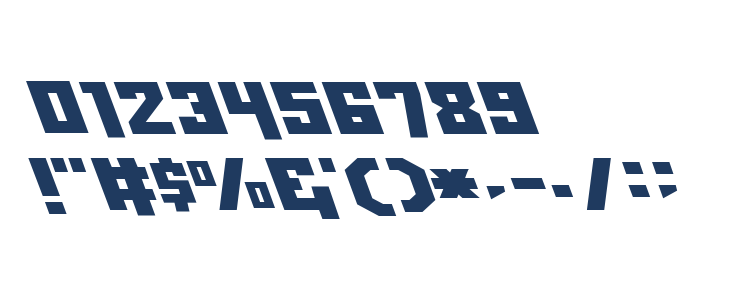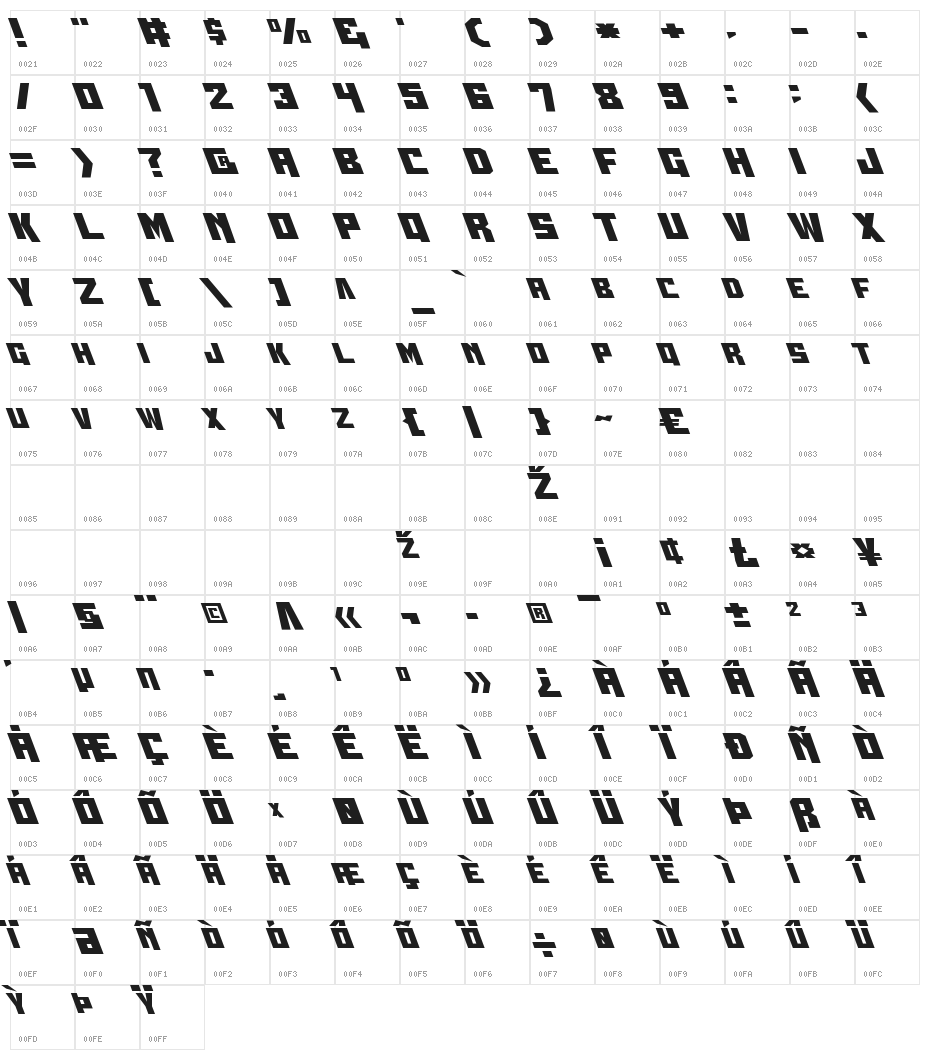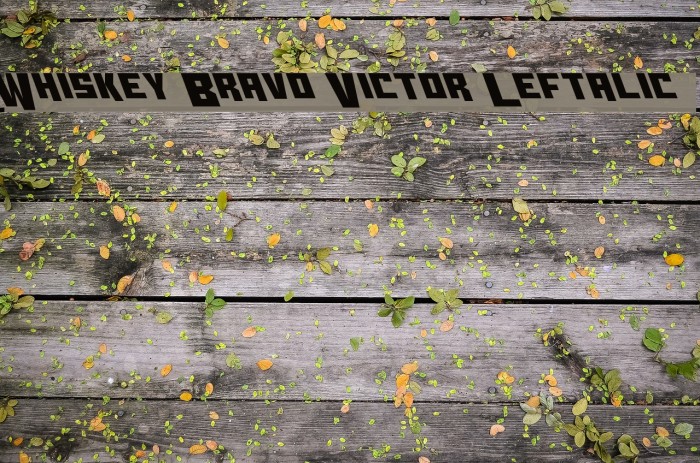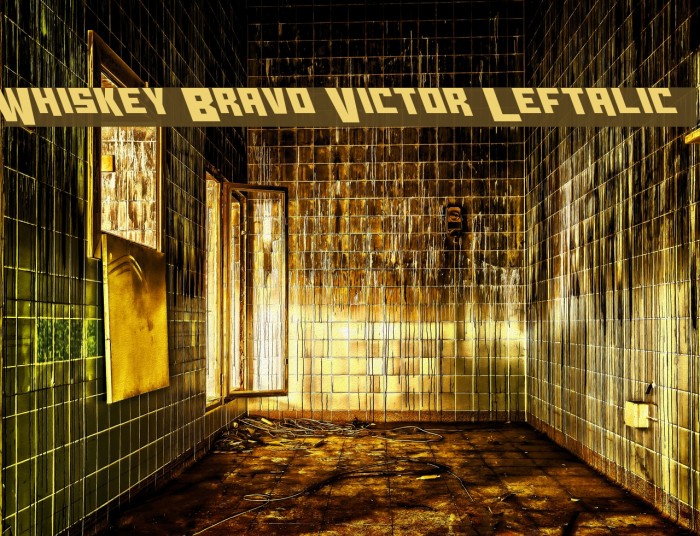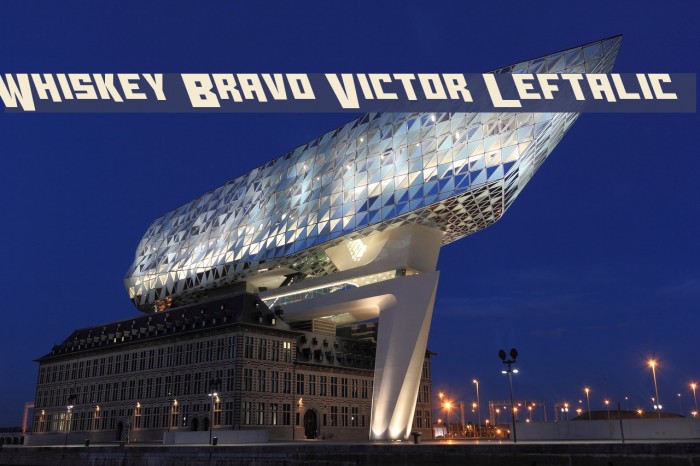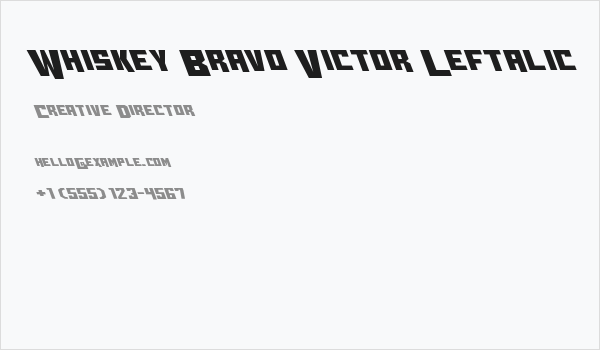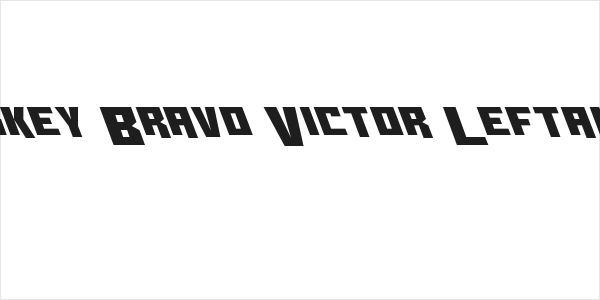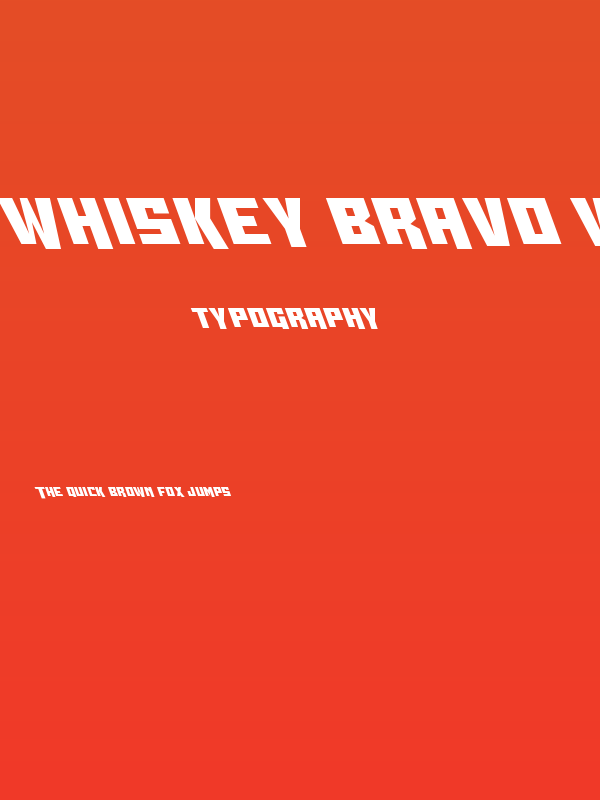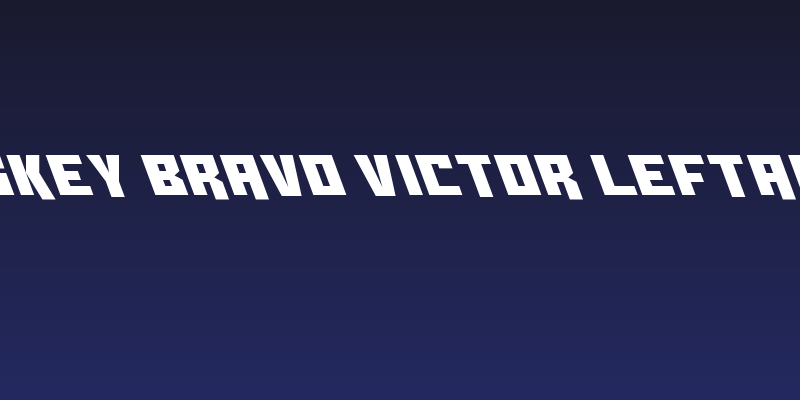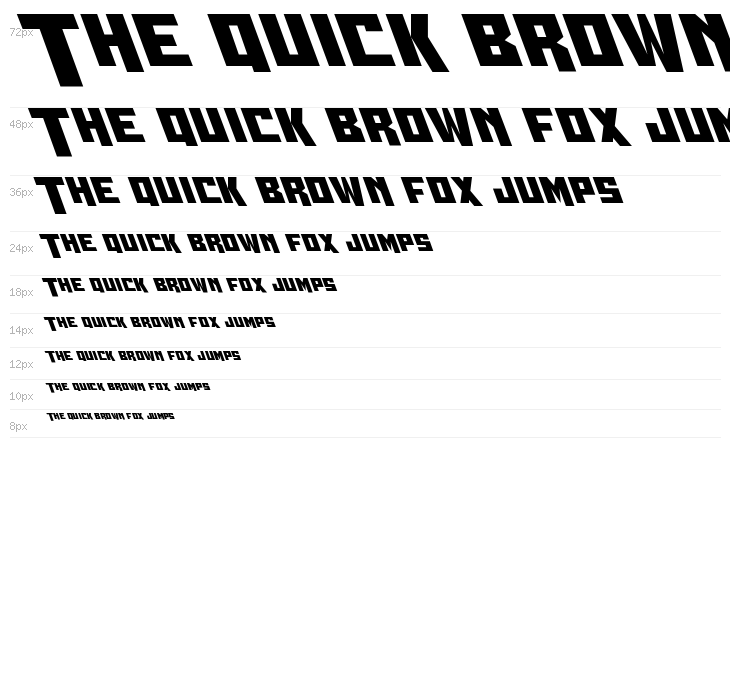
Whiskey Bravo Victor Leftalic Font
Whiskey Bravo Victor Leftalic Description
This font features a bold and angular design with a distinct slant, giving it a dynamic and energetic appearance. The characters are heavily stylized with sharp edges and a blocky structure, reminiscent of stencil or military-inspired typography. The uppercase and lowercase letters maintain a consistent width, while the numbers and special characters follow the same bold and geometric style. The overall impression is one of strength and assertiveness, making it suitable for impactful and attention-grabbing designs.
| Proposed Projects | Ideal for posters, branding, logos, and any project requiring a strong, assertive visual impact. |